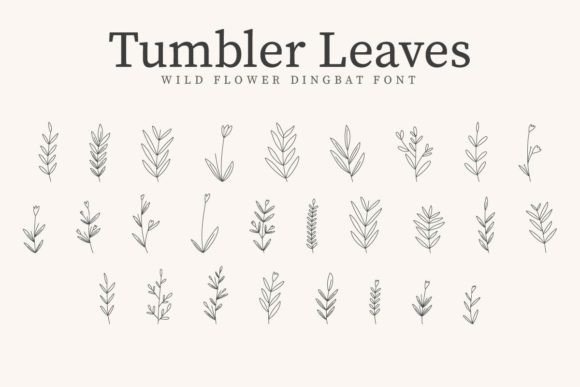
Tumbler Leaves Font: A Beautiful Botanical Dingbat Font for Creative Projects
Tumbler Leaves Font is a stunning botanical dingbat font that has been gaining popularity among designers and crafty enthusiasts alike. This beautiful font is perfect for creative projects such as wedding invitations, stickers, logos, t-shirts, posters, and more. In this article, we will explore the features and benefits of Tumbler Leaves Font, and how it can elevate your design projects to the next level.
What is Tumbler Leaves Font?
Tumbler Leaves Font is a unique and elegant botanical dingbat font that features intricate illustrations of leaves, flowers, and branches. The font is designed to resemble hand-drawn illustrations, giving it a charming and whimsical feel. The font consists of a wide range of glyphs, including leaves, flowers, stems, and other botanical elements, making it perfect for creating beautiful and intricate designs.
Features of Tumbler Leaves Font
Tumbler Leaves Font comes with a range of features that make it a versatile and practical font for designers and crafty enthusiasts. Some of the key features of this font include:
- Wide range of glyphs: The font includes a wide range of glyphs, including leaves, flowers, stems, and other botanical elements, giving you plenty of options for creating unique and intricate designs.
- Beautiful illustrations: The font features beautiful, hand-drawn illustrations that give it a charming and whimsical feel.
Benefits of Using Tumbler Leaves Font
Tumbler Leaves Font offers a range of benefits for designers and crafty enthusiasts. Some of the key benefits of using this font include:
- Unique and eye-catching designs: The font allows you to create unique and eye-catching designs that will stand out from the crowd.
- Increased creativity: The font’s wide range of glyphs and beautiful illustrations can help inspire your creativity and take your designs to the next level.
- Time-saving: The font’s ease of use and wide range of glyphs can save you time and effort, allowing you to focus on other aspects of your design project.
- Professional-looking designs: The font’s high-quality illustrations and elegant design make it perfect for creating professional-looking designs that will impress your clients or audience.
Project Ideas Using Tumbler Leaves Font
Tumbler Leaves Font is perfect for a wide range of creative projects, including:
- Wedding invitations: Create beautiful and elegant wedding invitations using the Tumbler Leaves Font and its lovely illustrations.
- Stickers: Design custom stickers using the font’s wide range of glyphs and illustrations.
- Logos: Create unique and eye-catching logos for your business or brand using the Tumbler Leaves Font.
- T-shirts: Design custom t-shirts using the font and its beautiful illustrations.
- Posters: Create stunning posters using the Tumbler Leaves Font and its wide range of glyphs.
Tips and Tricks for Using Tumbler Leaves Font
Here are some tips and tricks for using Tumbler Leaves Font:
- Experiment with different glyphs: Experiment with different glyphs and illustrations to create unique and eye-catching designs.
- Mix and match: Mix and match different glyphs and illustrations to create intricate and beautiful designs.
- Use different colors: Use different colors to add depth and interest to your designs.
- Keep it simple: Keep your designs simple and elegant to let the beauty of the Tumbler Leaves Font shine through.
| Author | CraftedType Studio |
Tumbler Leaves Font is a beautiful botanical dingbat font that is perfect for creative projects such as wedding invitations, stickers, logos, t-shirts, posters, and more. With its wide range of glyphs, beautiful illustrations, and ease of use, this font is a must-have for designers and crafty enthusiasts alike. Whether you’re looking to create unique and eye-catching designs or professional-looking designs for your clients, Tumbler Leaves Font is the perfect choice.
- What is Tumbler Leaves Font?: Tumbler Leaves Font is a beautiful botanical dingbat font that features intricate illustrations of leaves, flowers, and branches.